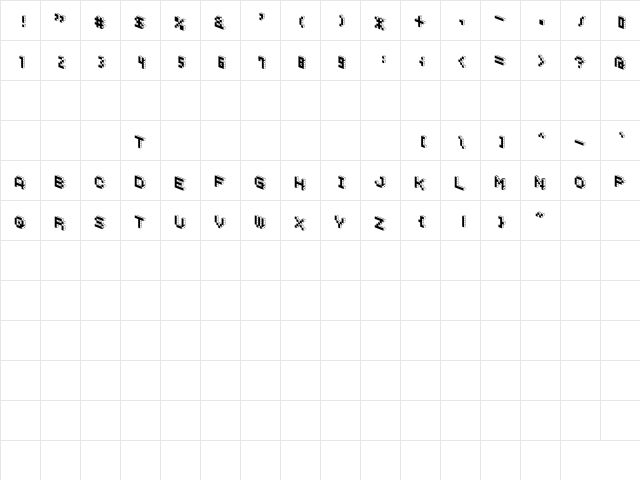
DemonCubicBlockFont Black Regular
Design Context for DemonCubicBlockFont Black Typeface
DemonCubicBlockFont Black is a composed and adaptable typeface that performs quietly and consistently across a wide range of design contexts.